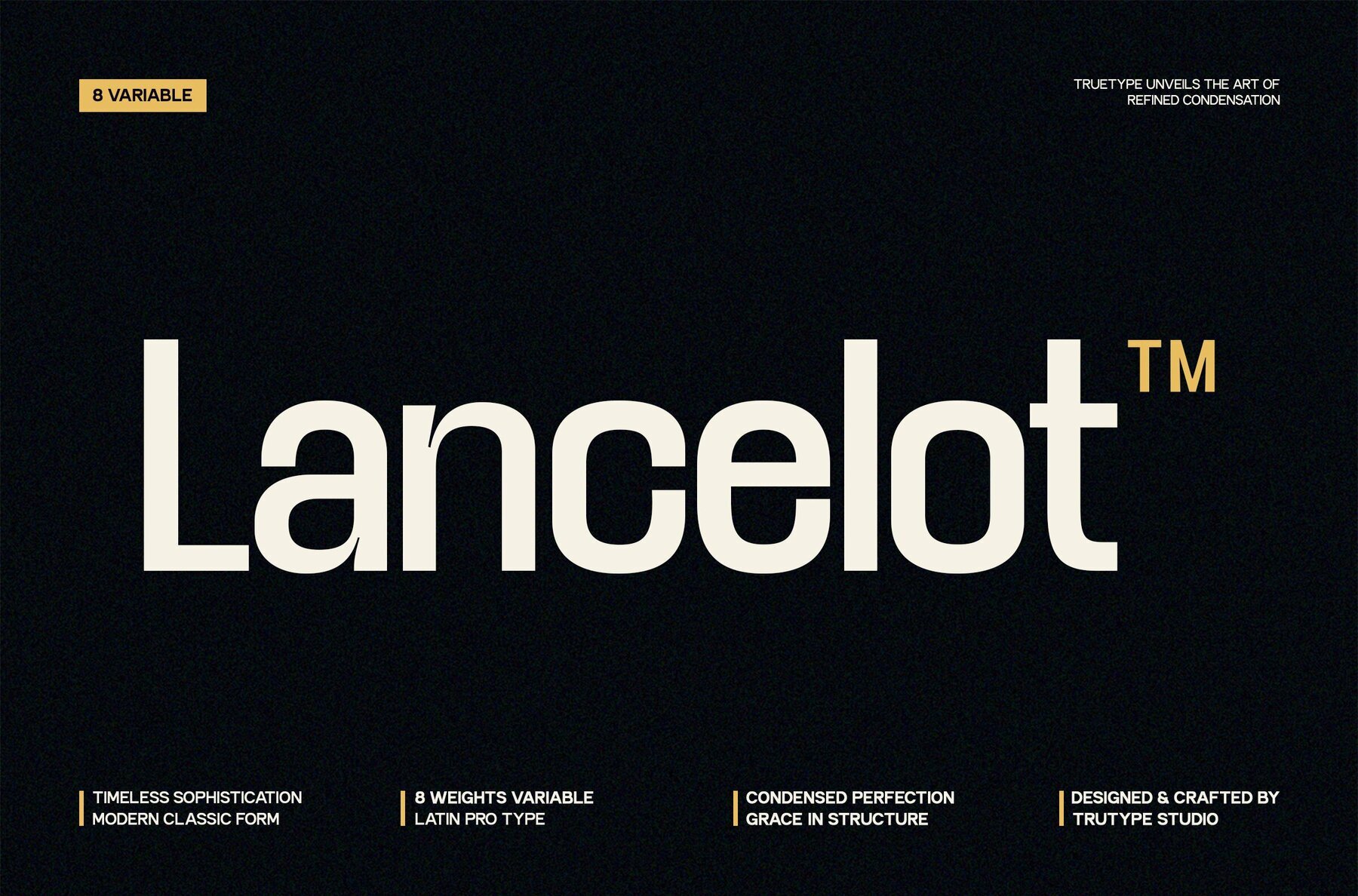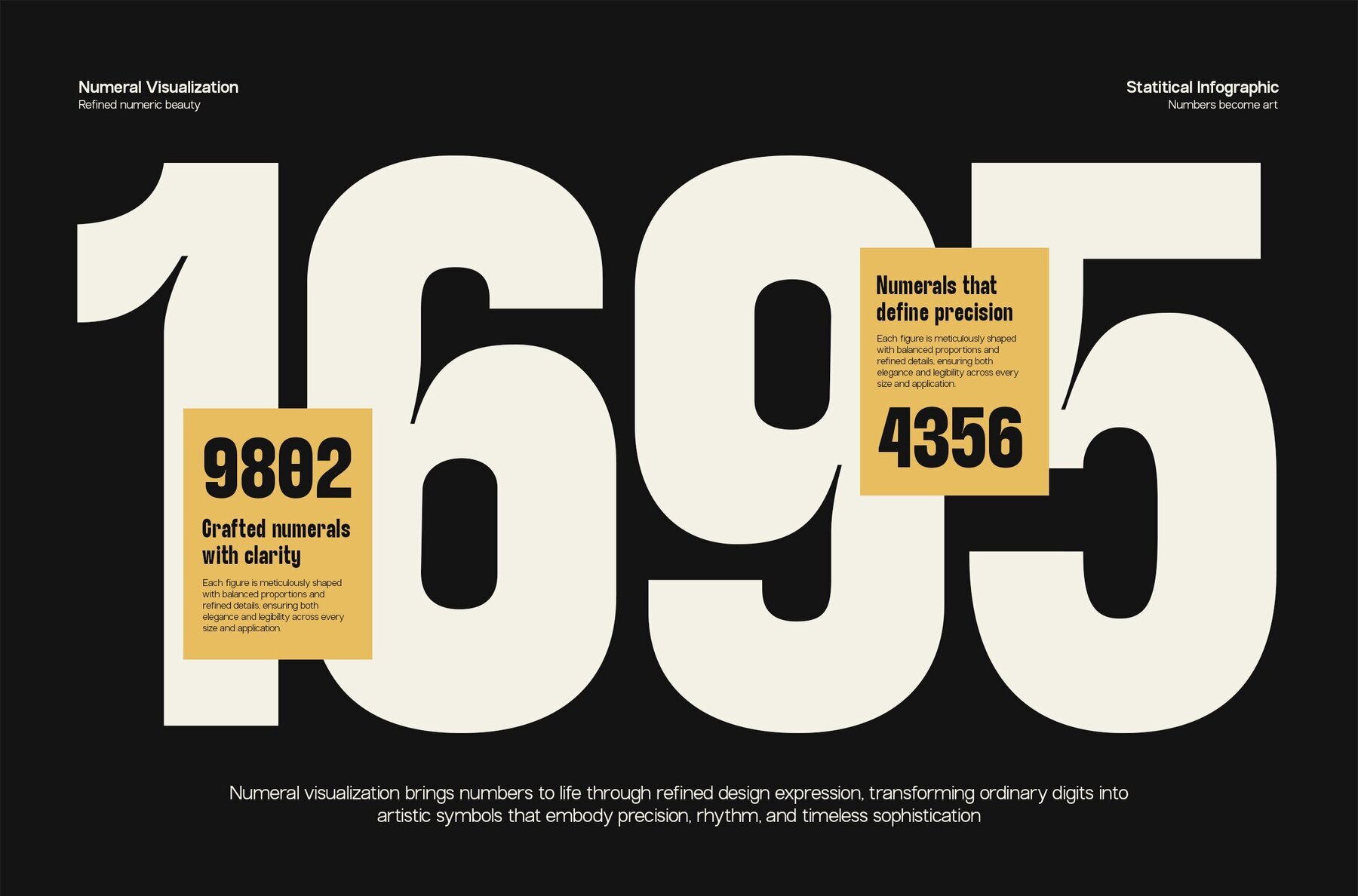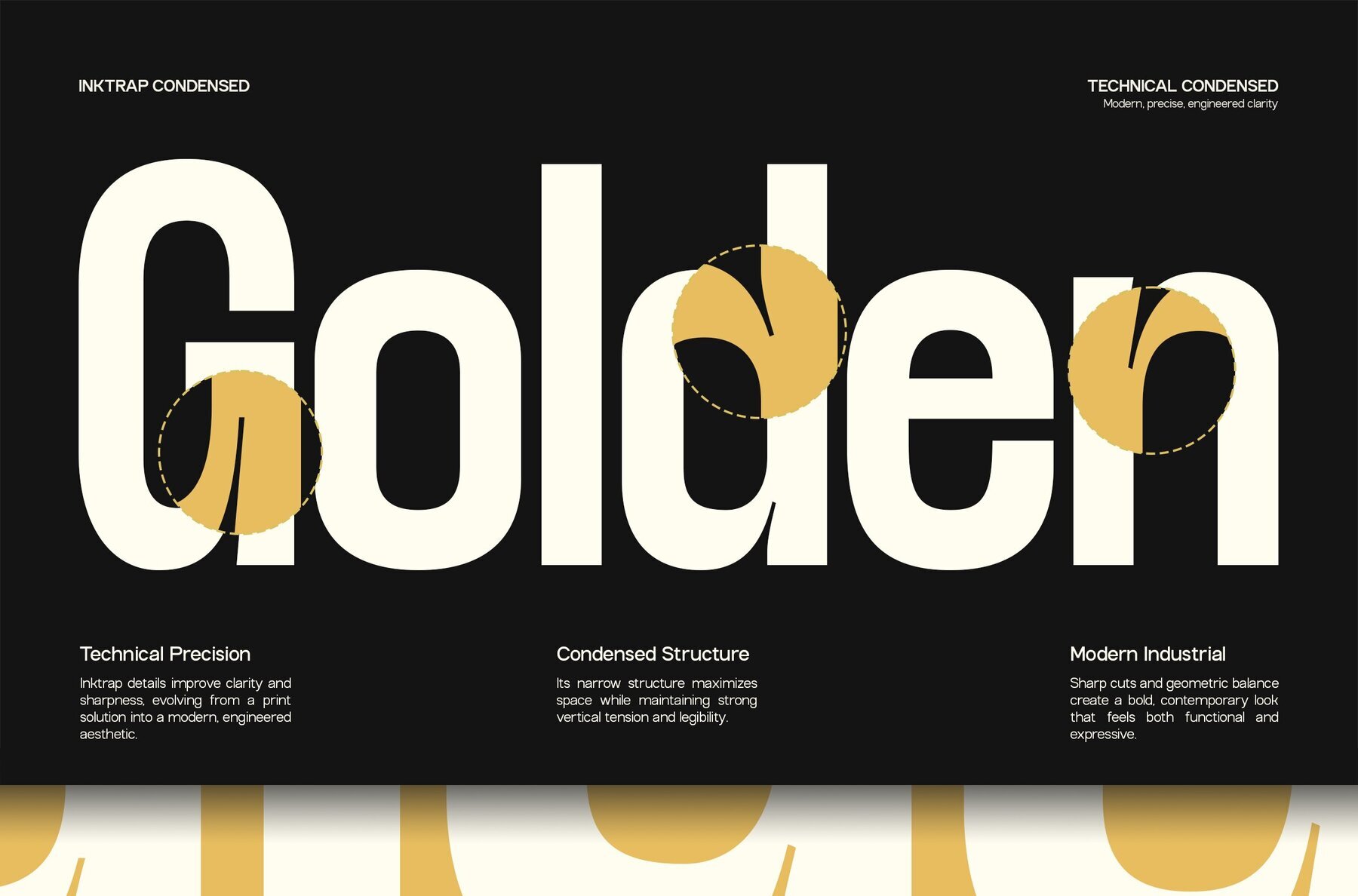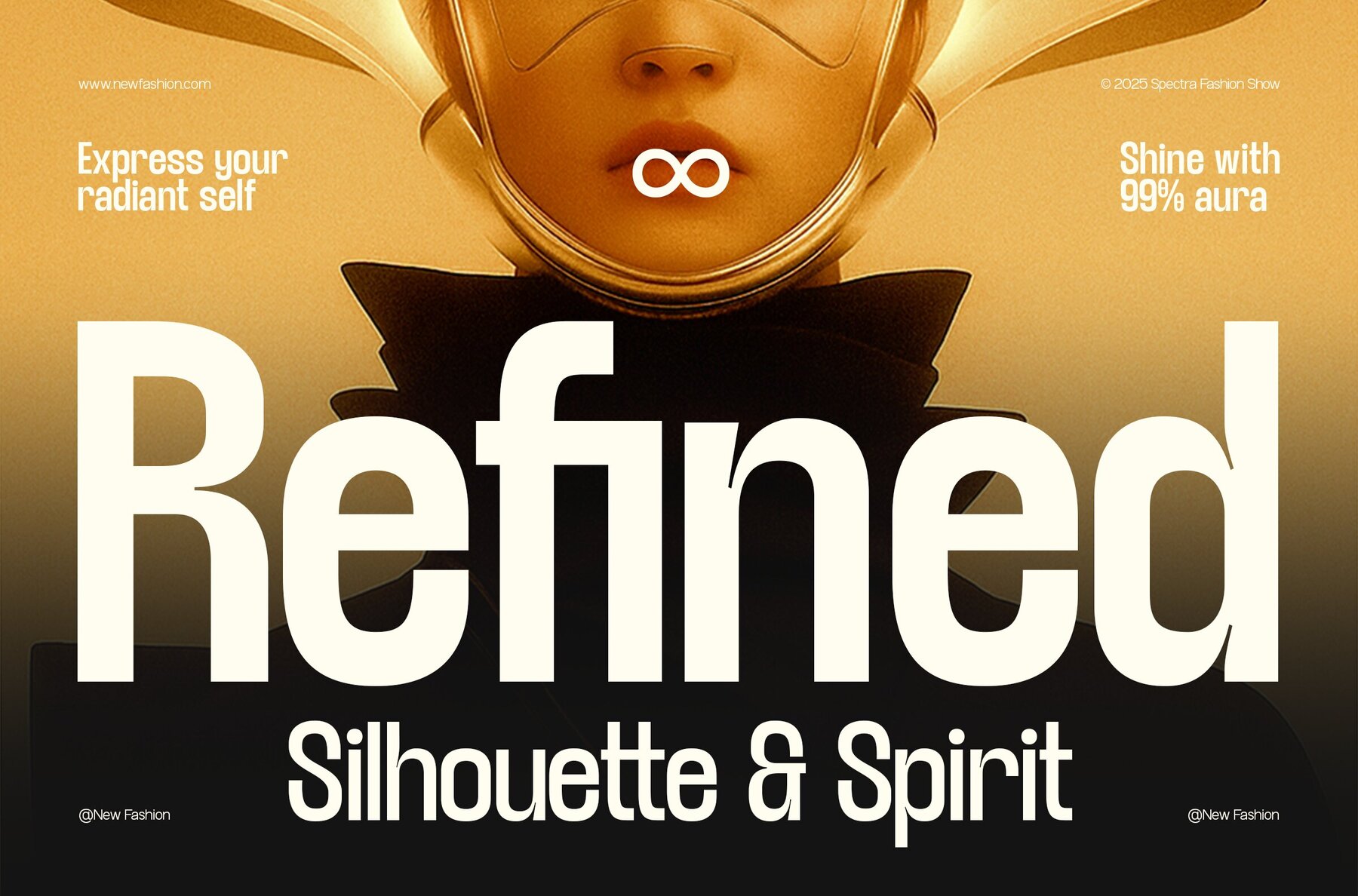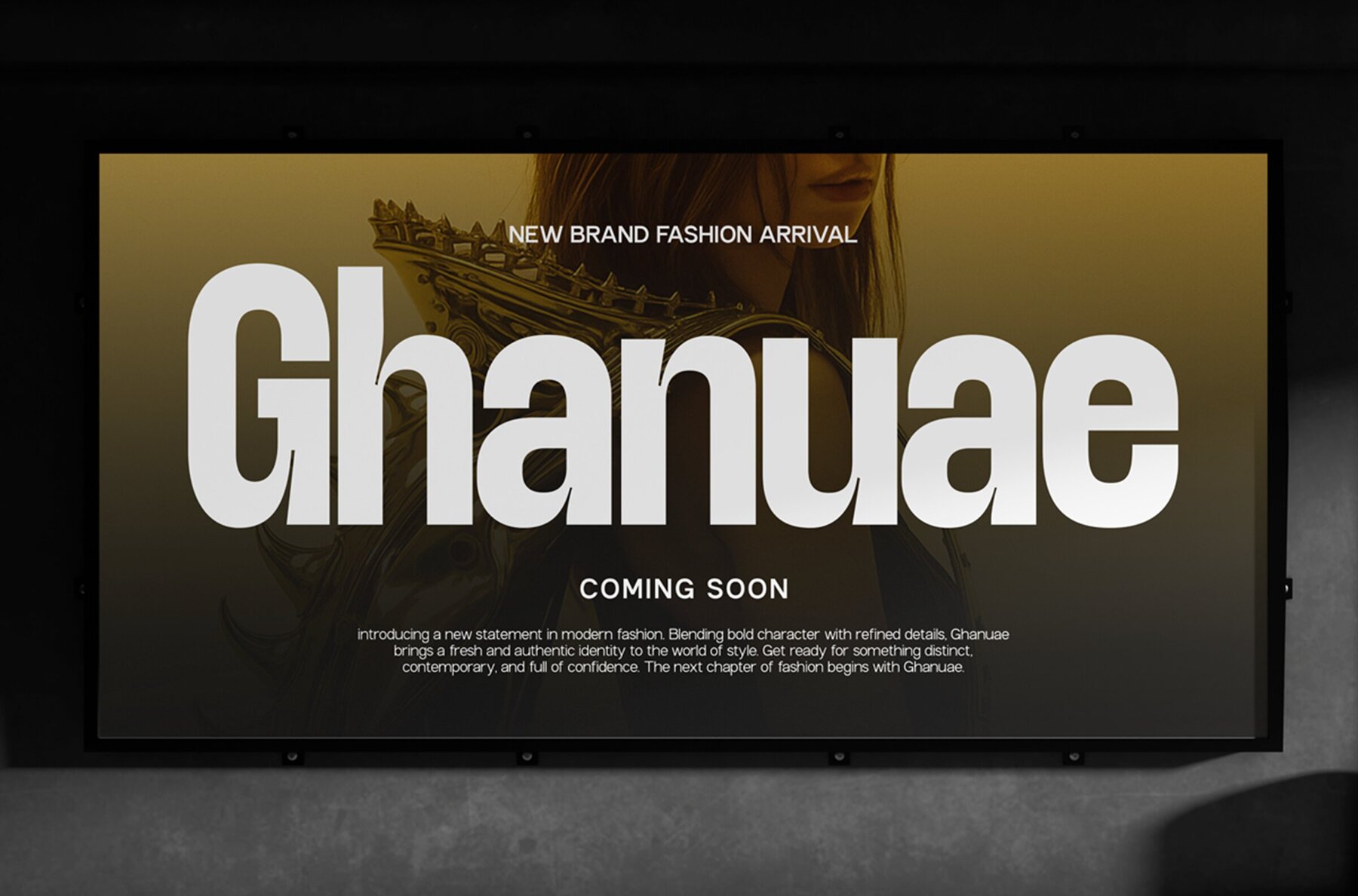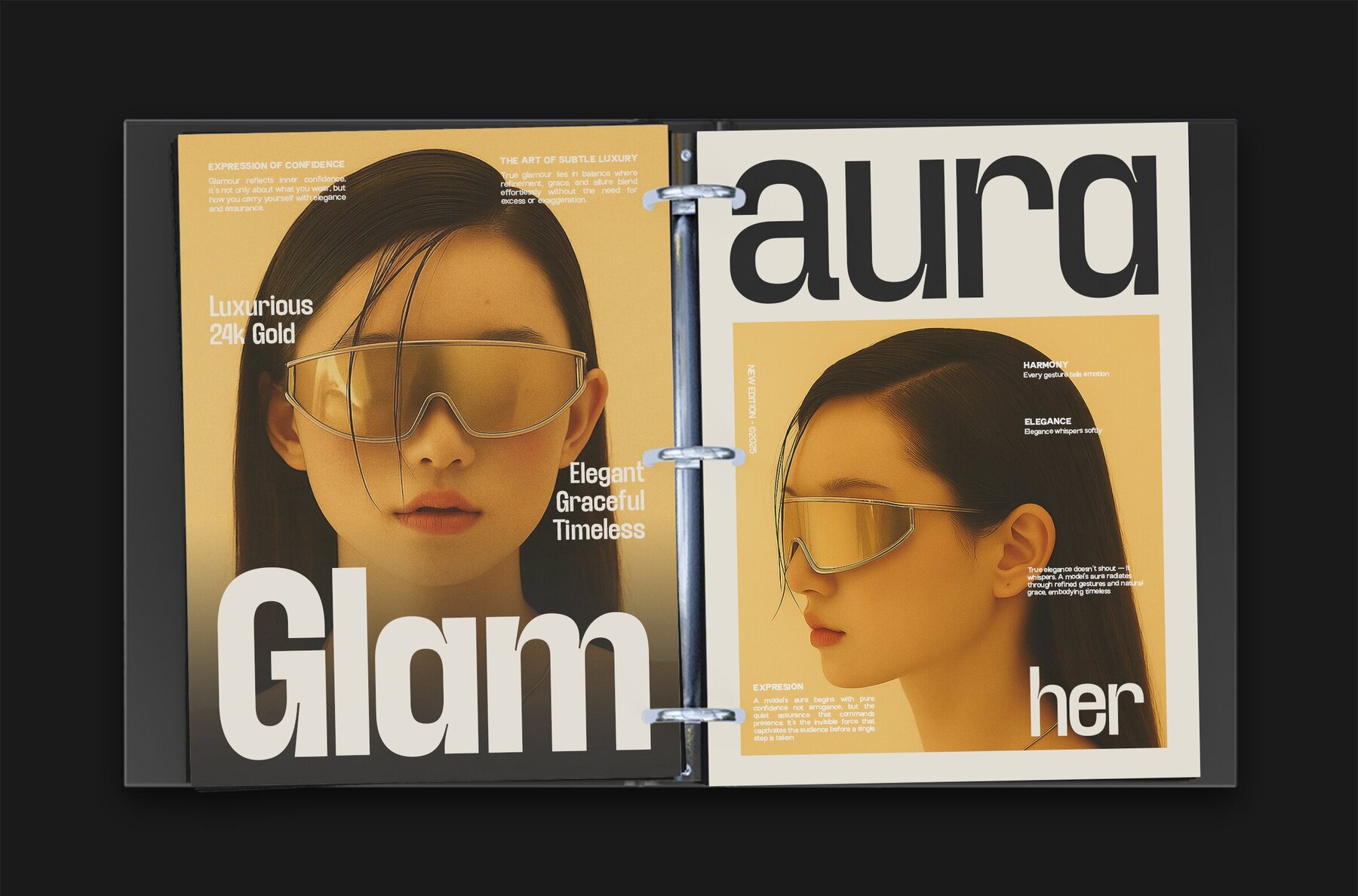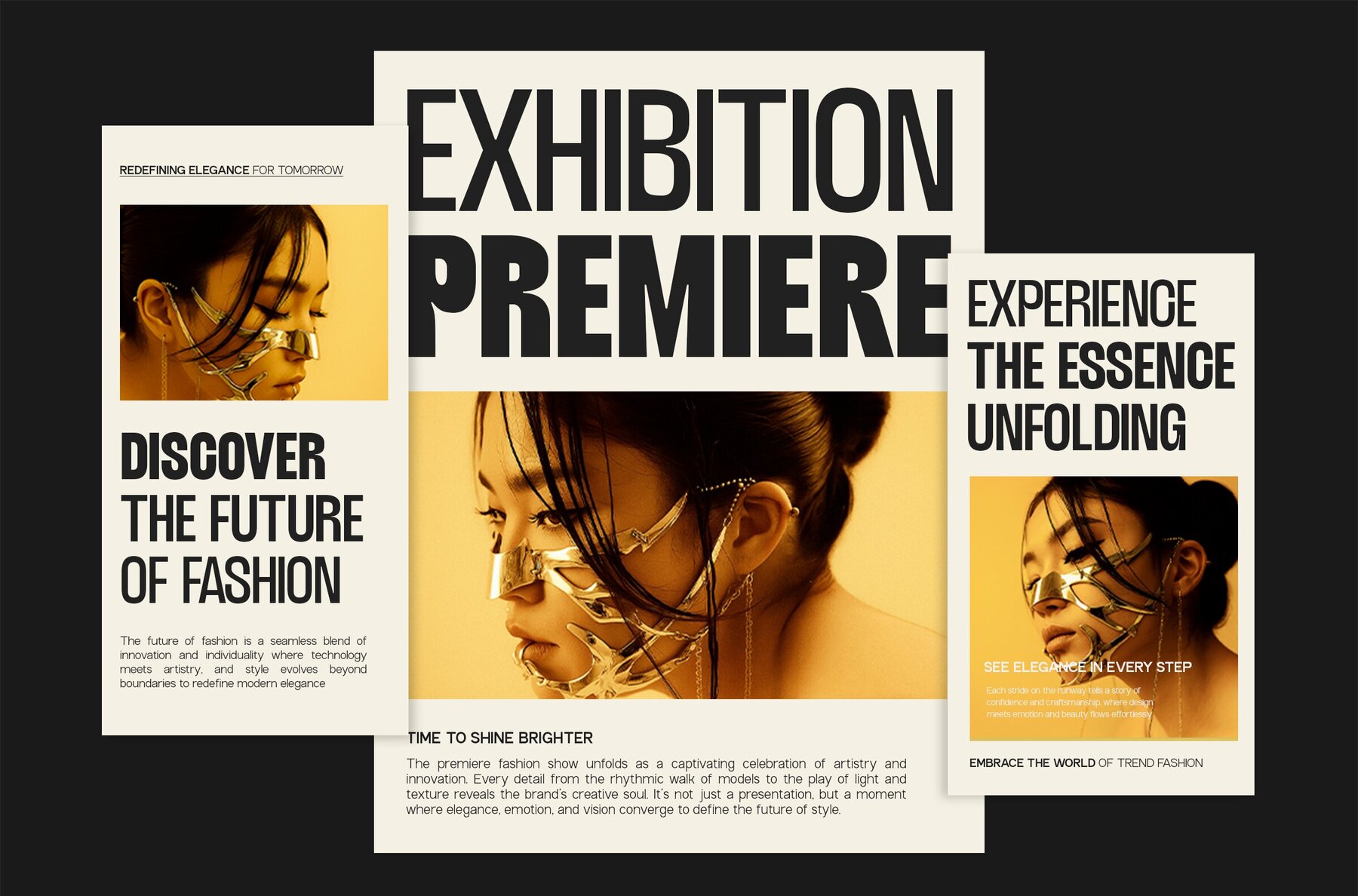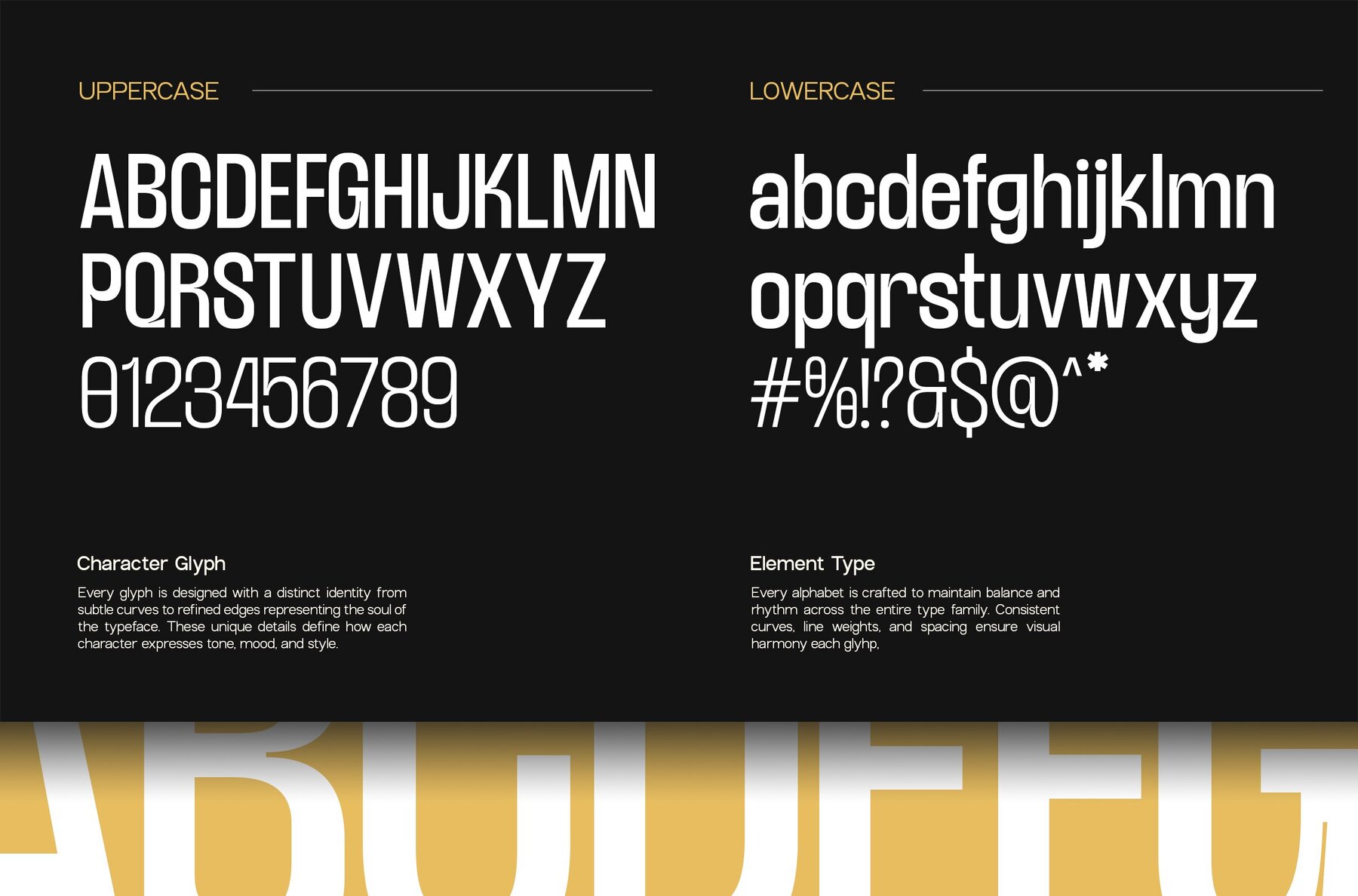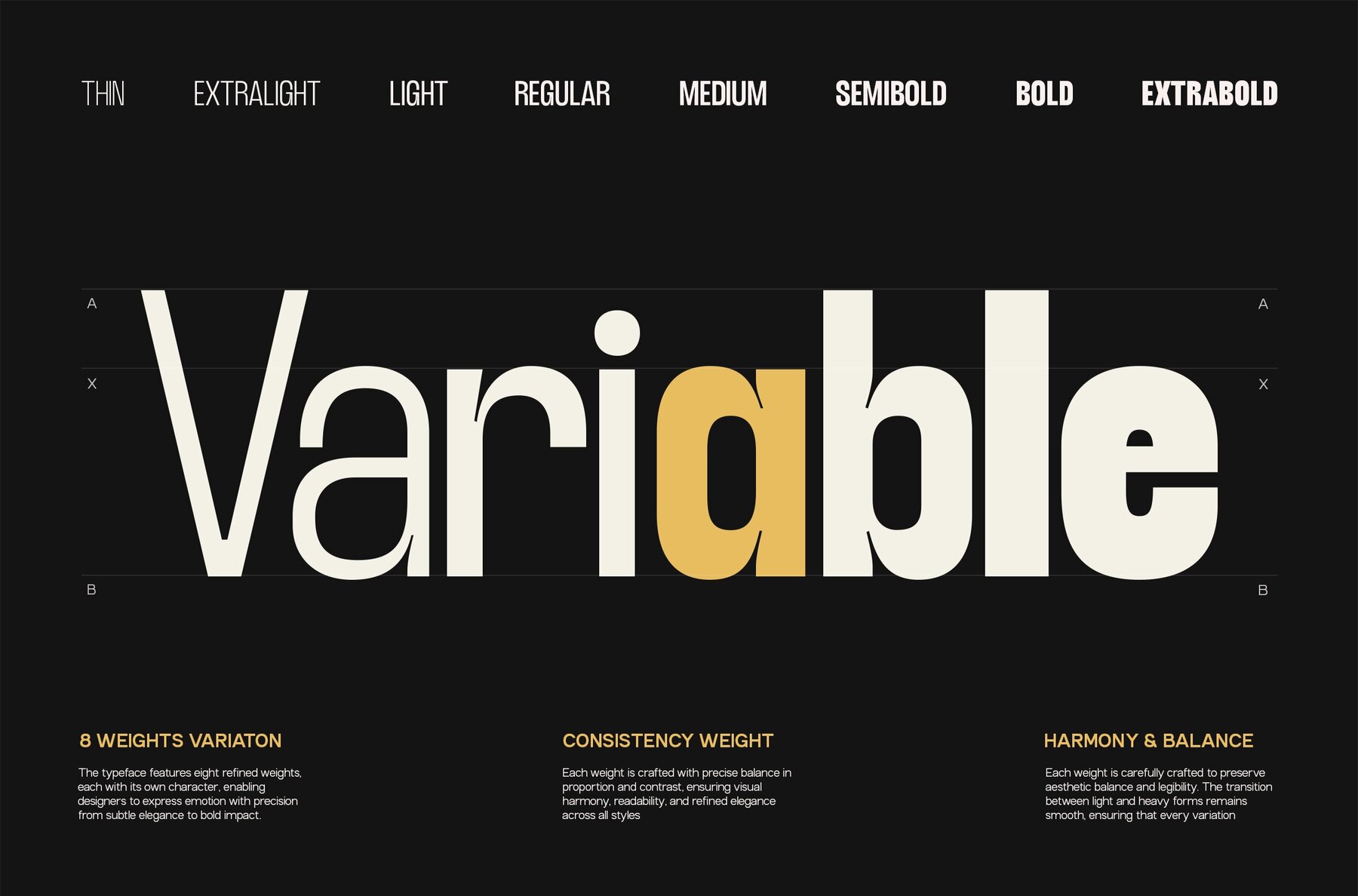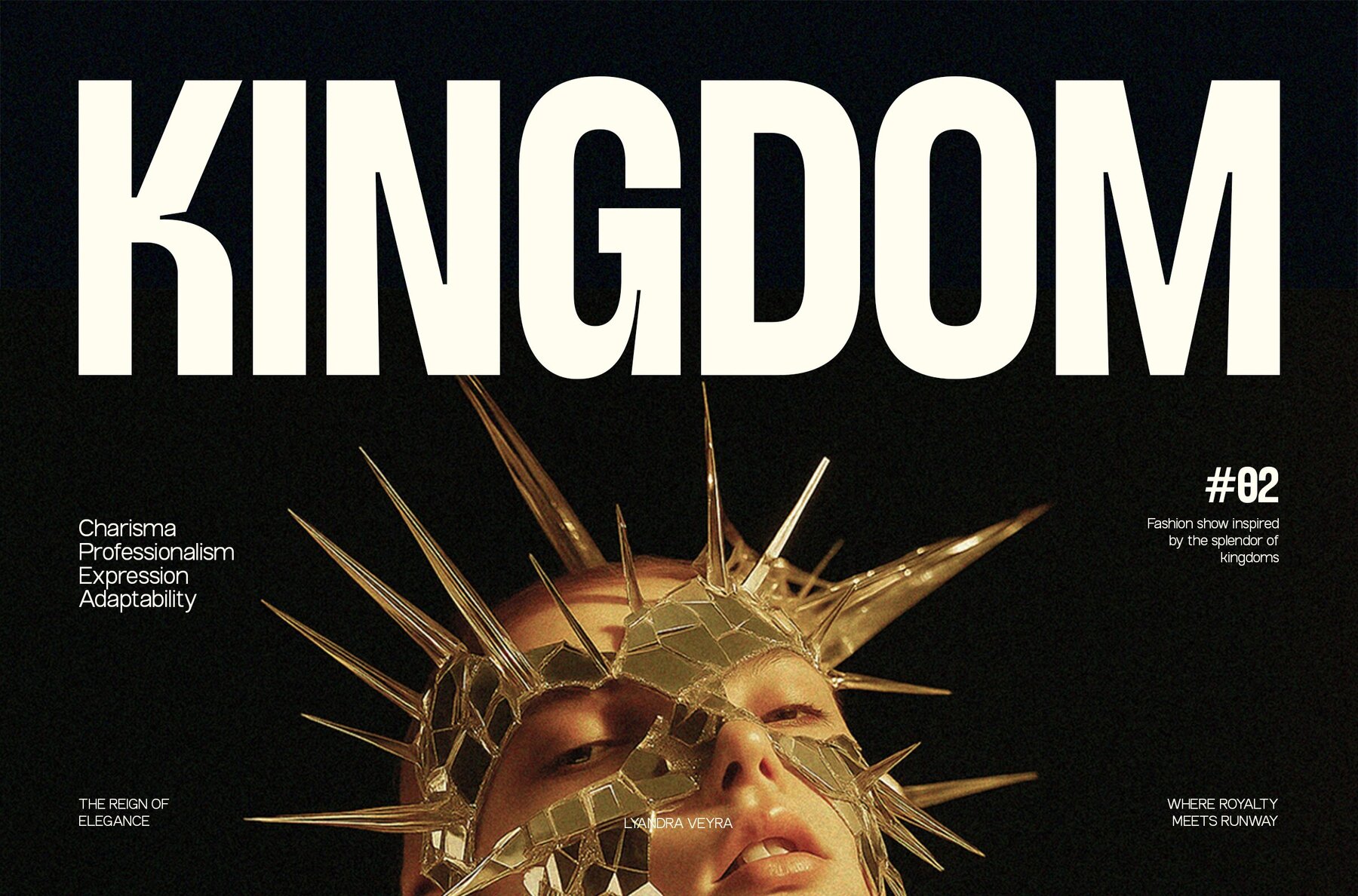
TRT Lancelot Font
TRT Lancelot presents a contemporary approach to condensed type, marked by sharp inktrap details and an extensive range of weights, from Thin to Extra Bold. Its compact construction and subtle geometric refinement lend it a striking profile, ideal for commanding headlines, branding systems, posters, and editorial compositions. The distinctive inktraps not only enhance visual character but also introduce practical clarity to densely set type. Engineered for both readability and style, TRT Lancelot’s clean lines intersect with expressive, angular moments, ensuring legibility at smaller scales and bold presence when enlarged. This purposeful balance makes TRT Lancelot suitable for designers aiming to give their projects a contemporary condensed font with a memorable signature. Its adaptability supports a variety of creative directions, lending consistency without imposing excess formality.TRT Lancelot: Modern Condensed Typeface With Distinct Inktraps